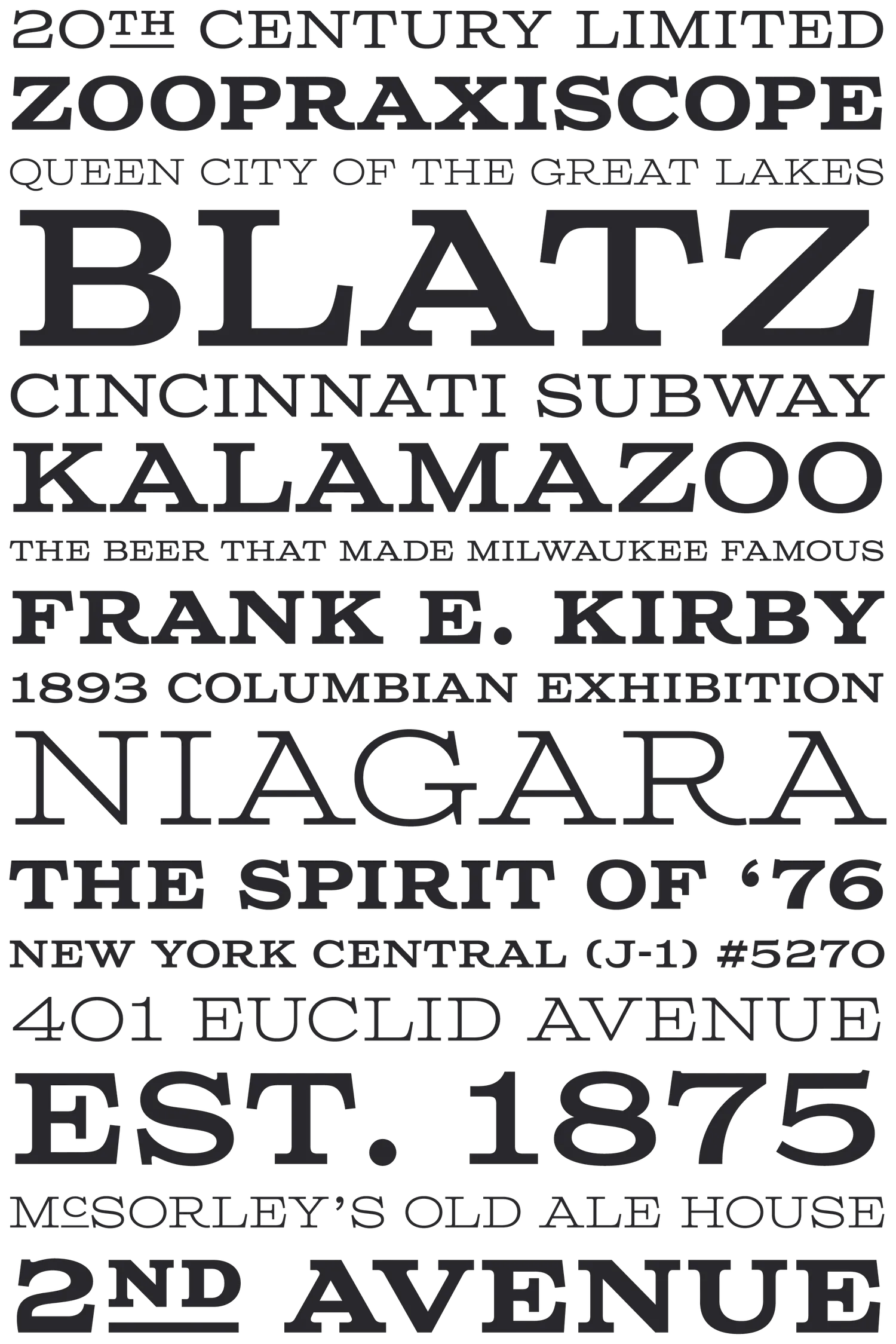
About Columbia Titling
Columbia Titling was originally developed for the non-profit SS Columbia Project, owner and steward of the historic SS Columbia, a 1902-built former Detroit River steamboat that they plan to restore and operate as a Hudson River cruise vessel in New York City and the Hudson River Valley — using the boat’s original steam engine.
As was the case with the “Gibbs” typeface, Columbia Titling was intended for the group to use in marketing materials and other branded collateral, and was inspired by signage found on board the ship starting in the 1930s.
Columbia Titling has since been spotted on various storefronts, restaurant menus, and pocket calendars. Columbia Titling was awarded the Type Directors Club Certificate for Typographic Excellence in 2014.
OpenType Features
• Fractions
• Lining Numerals
• Ordinal Numerals
• Small Capitals
• Subscript
• Superscript
• Tabular Numerals